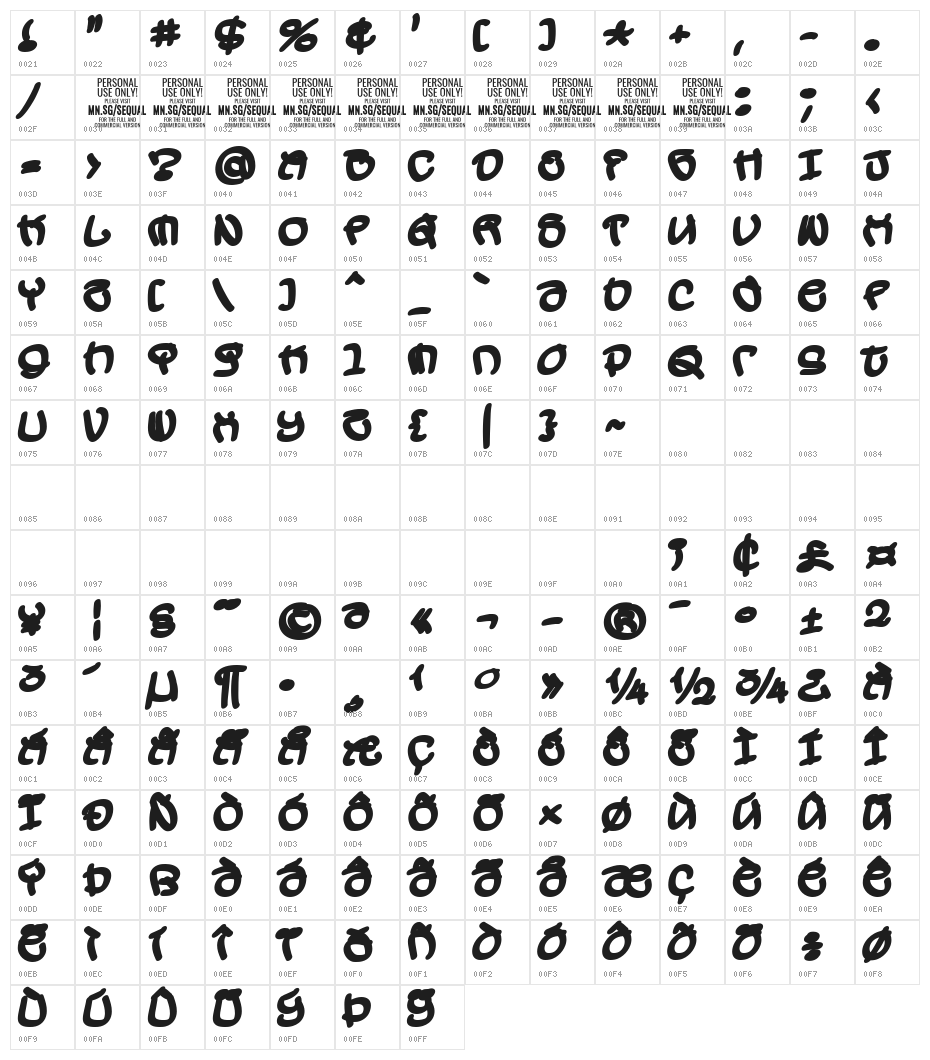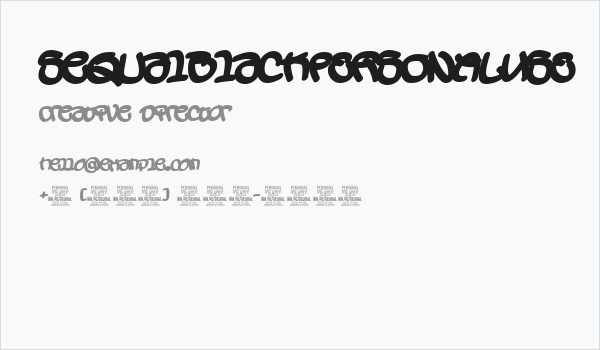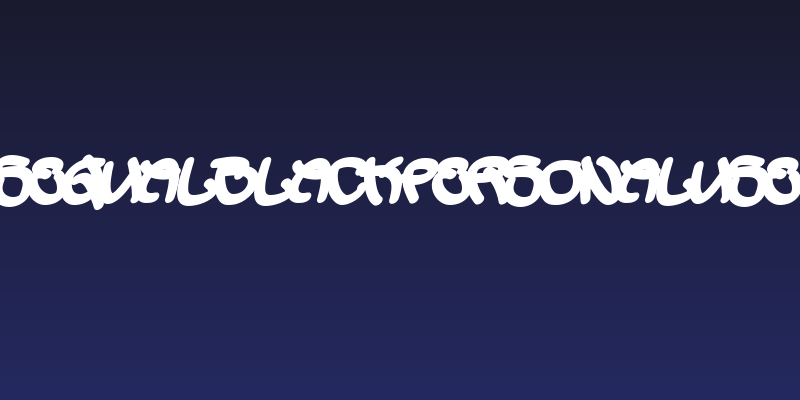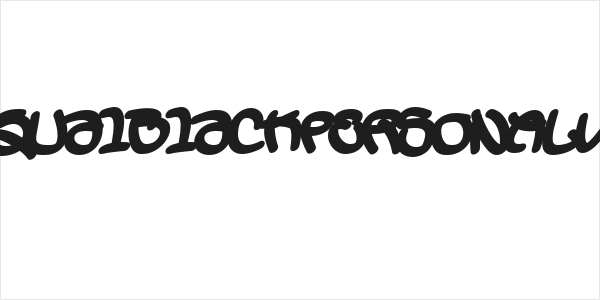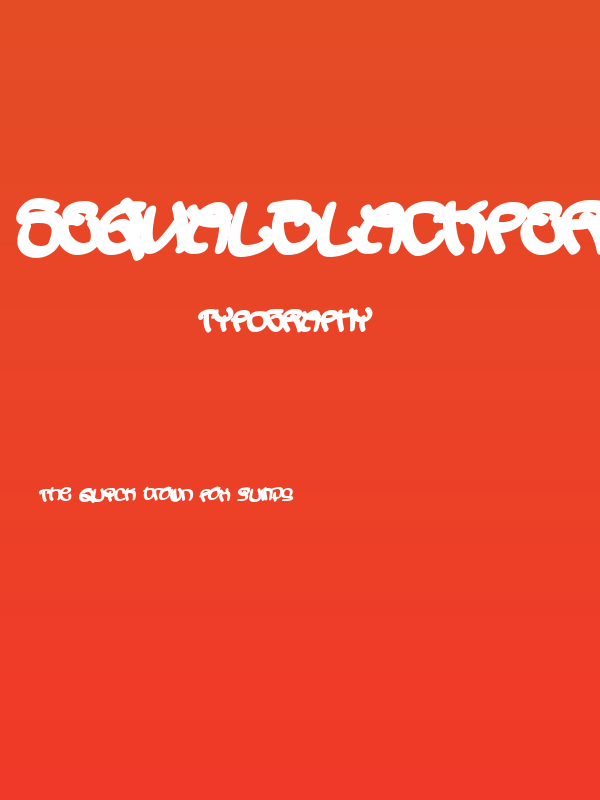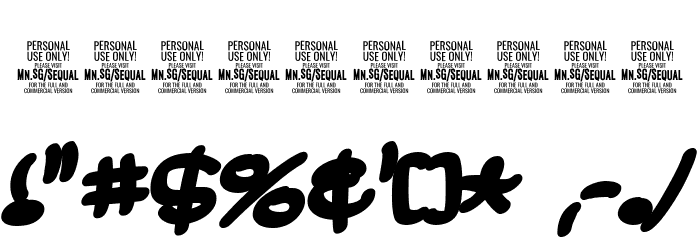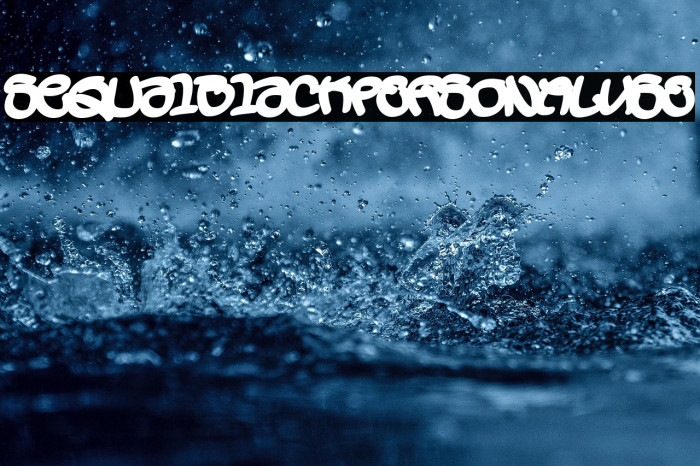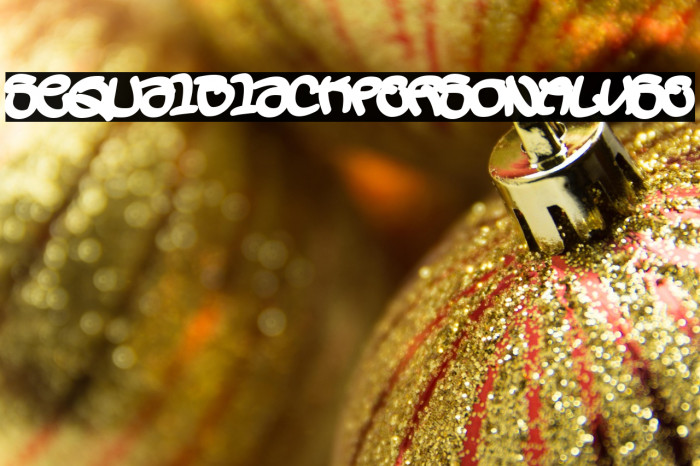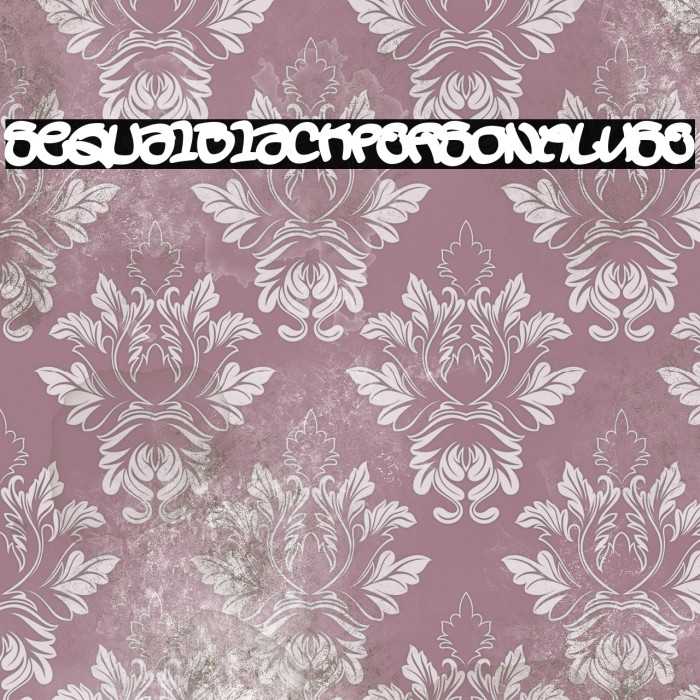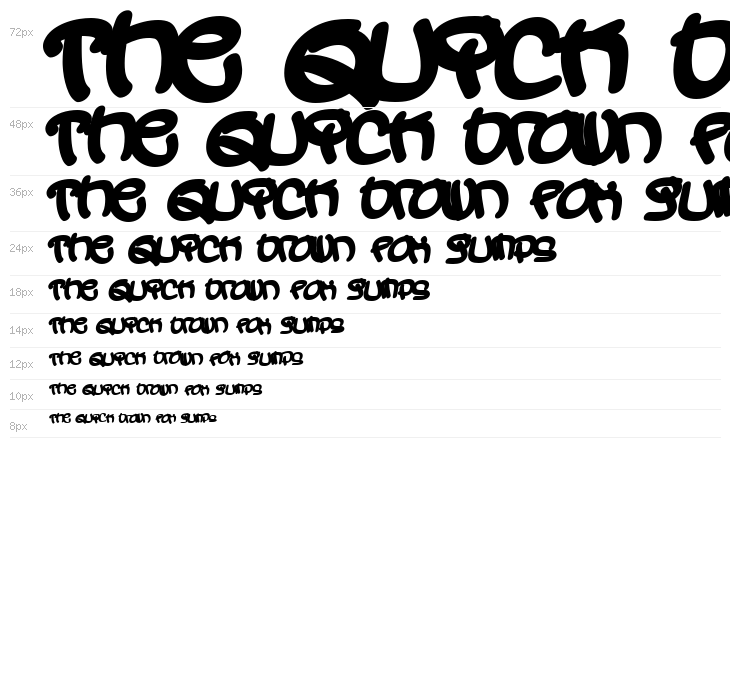
SequalBlackPERSONALUSE Font
SequalBlackPERSONALUSE Description
This font features a bold and expressive style with a graffiti-like appearance. The characters are interconnected and flow seamlessly into one another, creating a sense of movement and energy. The strokes are thick and rounded, giving the font a playful and informal vibe. The uppercase and lowercase letters maintain a consistent style, while the numbers and special characters are equally dynamic and bold. This font is ideal for projects that require a strong visual impact and a modern, urban aesthetic.
| Proposed Projects | Perfect for street art designs, urban-themed posters, music album covers, and edgy branding projects. |